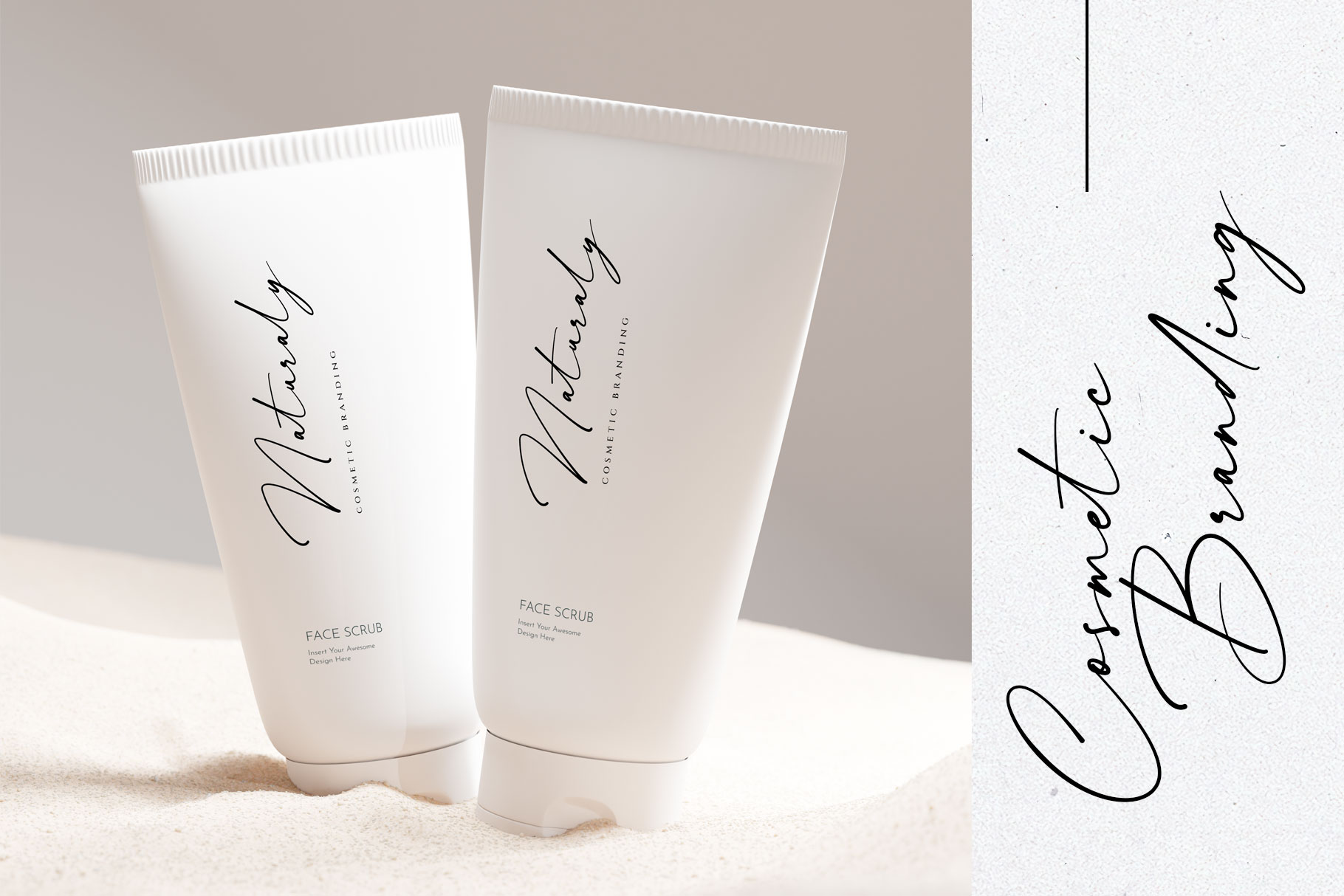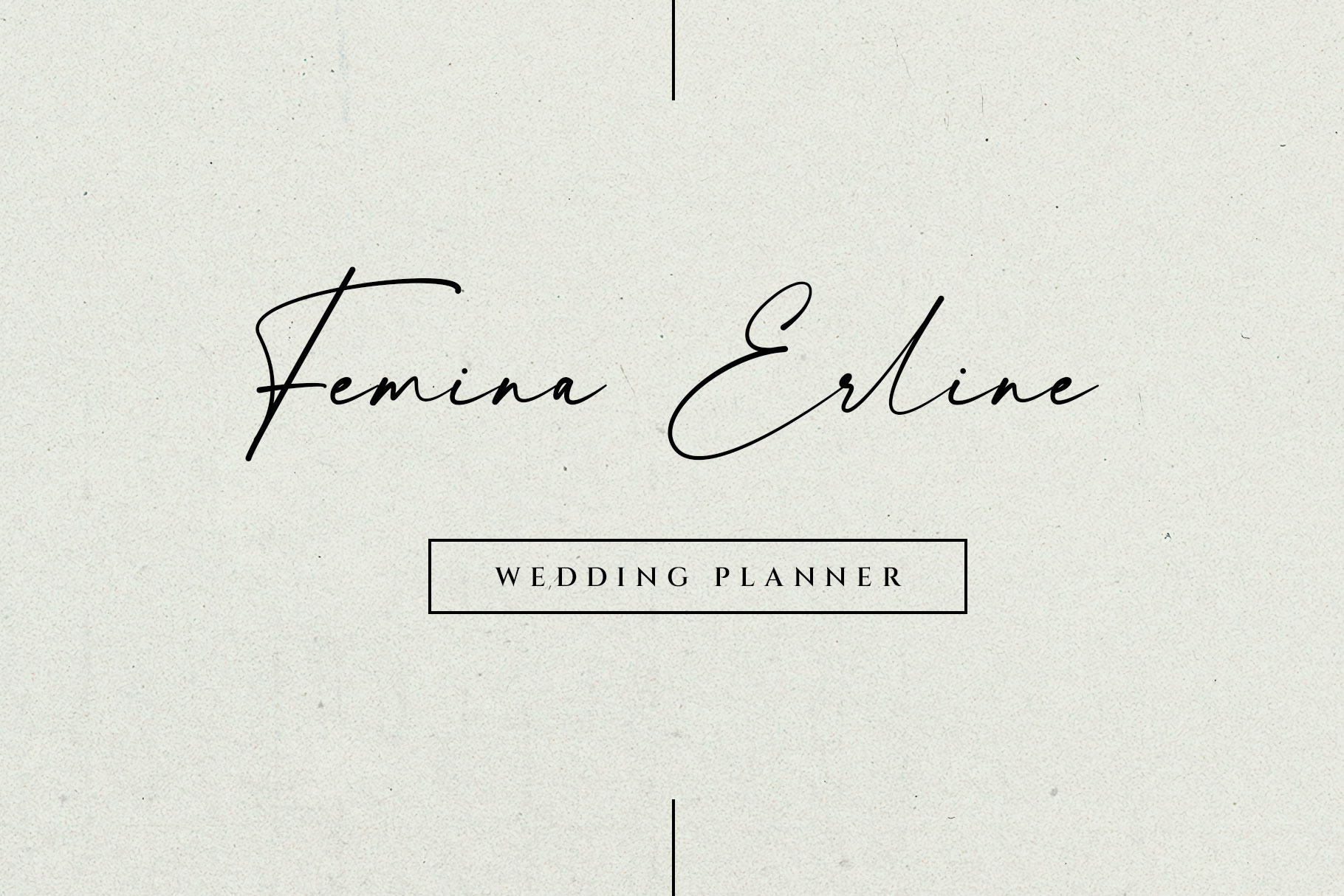
Brittona Stylish Business Font
Brittona is modern style font which can be interpreted professional with stylish curve. We keep this font looks modern, minimalist, elegant, readable, stylish, catchy and easy to use. Brittona come with alternate, ligature and multilingual support.
Brittona is a beautiful choice for any creative endeavor, chic, lifestyle design such as logos, title, watermark on photography, cover, branding, display and magazine, wedding event, quotes, album cover, business card and many other design project. Brittona here to make your work to high level!!!
• Ligature and Alternate